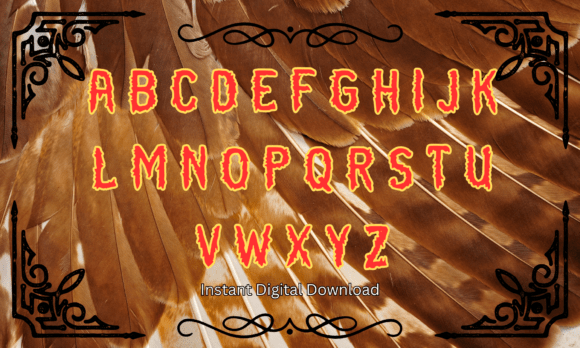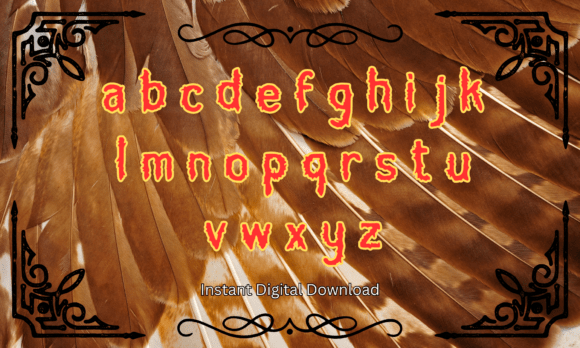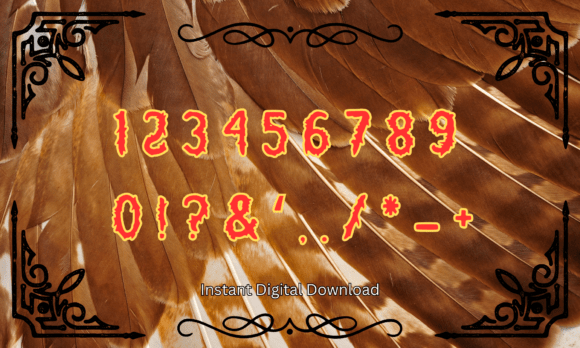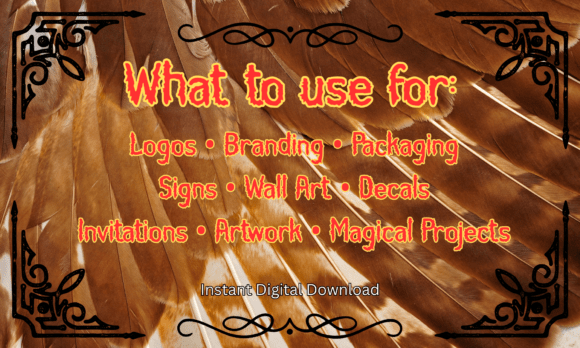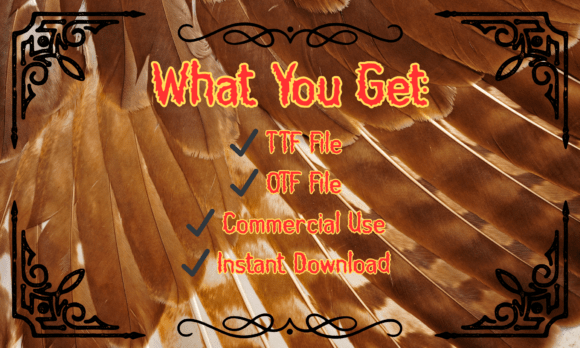
Unleash the Power of Griffin Feather Font: A Fierce and Fantasy-Inspired Display Font
Are you looking for a font that can add a touch of raw power and legendary energy to your creative work? Look no further than the Griffin Feather Font, a fierce and fantasy-inspired display font designed to stand out. This font features jagged, flame-edged lettering with a feathered, mythical feel that’s perfect for projects that need bold impact and dramatic style.
Inspired by Mythical Creatures and Fantasy Realms
The Griffin Feather Font is inspired by griffins, ancient beasts, and fantasy realms, making it ideal for designers and crafters who want to add a touch of magic to their work. Griffins have long been a symbol of power, strength, and protection in mythology and folklore, and this font captures their essence perfectly. With its bold and dramatic lettering, the Griffin Feather Font is sure to command attention and leave a lasting impression.
So, what can you use the Griffin Feather Font for? The possibilities are endless! Here are some ideas to get you started:
- Logos & Branding: Create a bold and memorable logo that stands out from the crowd.
- Packaging & Product Labels: Add a touch of magic to your product packaging and labels.
- Signs & Wall Art: Create eye-catching signs and wall art that makes a statement.
- Decals & Stickers: Design decals and stickers that are sure to grab attention.
- Invitations & Event Designs: Add a touch of fantasy to your invitations and event designs.
- Fantasy Artwork: Create stunning fantasy artwork that’s sure to transport viewers to another world.
- Magical & Mythical Projects: Bring your magical and mythical projects to life with this font.
- RPG, Game, or Story Designs: Add a touch of adventure and excitement to your RPG, game, or story designs.
Key Features of the Griffin Feather Font
So, what makes the Griffin Feather Font so special? Here are some of its key features:
- Fierce and Fantasy-Inspired Design: This font features a unique and bold design that’s perfect for projects that need a touch of magic.
- Jagged, Flame-Edged Lettering: The jagged, flame-edged lettering gives this font a raw and powerful feel.
- Feathered, Mythical Feel: The feathered, mythical feel of this font adds a touch of legend and mythology to your work.
- Bold Impact and Dramatic Style: This font is designed to make a statement and add a touch of drama to your work.
Why Choose the Griffin Feather Font?
So, why should you choose the Griffin Feather Font for your next project? Here are just a few reasons:
- Unique and Memorable: This font is sure to make your work stand out and be remembered.
- Versatile: The Griffin Feather Font can be used for a wide range of projects, from logos and branding to fantasy artwork and game designs.
- High-Quality Design: This font is designed to high standards, ensuring that it looks great in any context.
In conclusion, the Griffin Feather Font is a fierce and fantasy-inspired display font that’s perfect for designers and crafters who want to add a touch of magic to their work. With its bold and dramatic lettering, jagged flame-edged design, and feathered mythical feel, this font is sure to command attention and leave a lasting impression. So why wait? Download the Griffin Feather Font today and unleash the power of myth and legend in your work!